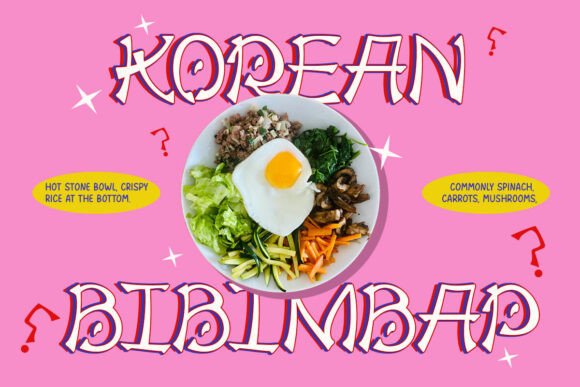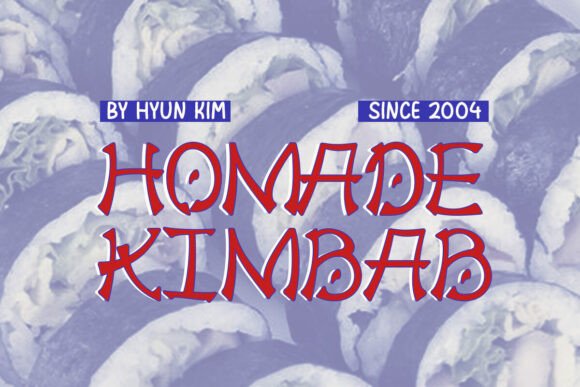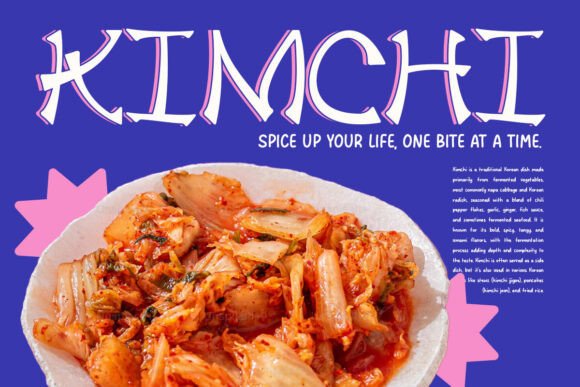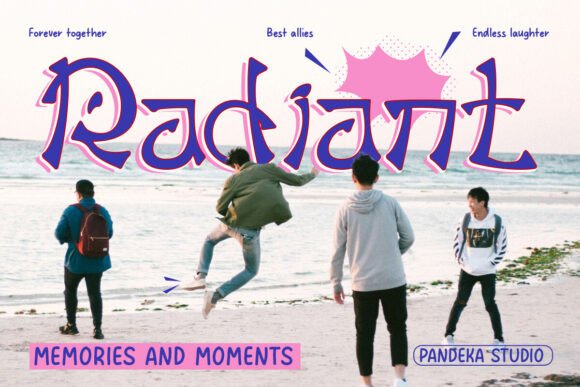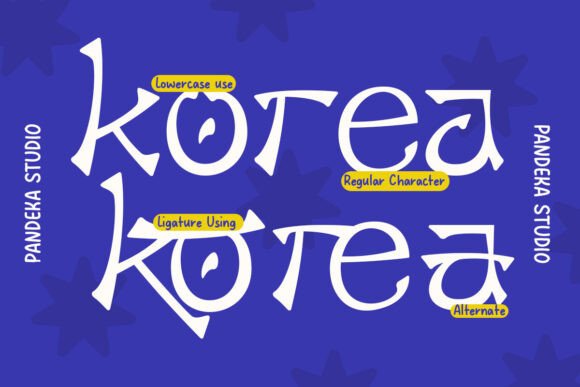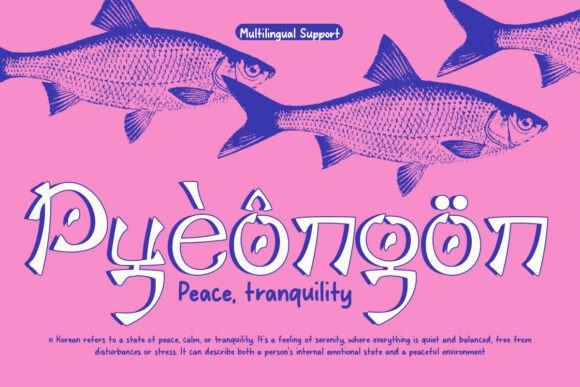
Hangeul Font: A Timeless Blend of Traditional and Modern Typography
In the world of typography, fonts play a crucial role in conveying the tone and personality of a brand, product, or message. For designers and crafters, finding the right font can make all the difference in creating a visually stunning and effective design. One font that has gained significant attention in recent times is Hangeul, a Korean display font that seamlessly blends bold lettering with modern typography while embracing a traditional aesthetic.
Inspired by Hangul Style
Hangeul is inspired by the traditional Hangul style, which is a unique and iconic part of Korean culture. Hangul is the native writing system of Korea, created in the 15th century to promote literacy and education. The Hangul style is characterized by its bold, elegant, and harmonious letterforms, which reflect the richness and beauty of Korean culture. The Hangeul font takes these traditional elements and infuses them with a modern twist, creating a unique and captivating typeface.
A Perfect Blend of Tradition and Modernity
The Hangeul font is a perfect blend of traditional and modern typography, making it an excellent choice for designers and crafters looking to add a touch of cultural flair to their designs. The font’s bold lettering and modern typography ensure that it is legible and versatile, while its traditional aesthetic adds a distinct and timeless charm. Whether you’re working on a branding project, logo design, packaging, poster, event invitation, or editorial design, Hangeul is an excellent choice.
Characteristics of Hangeul Font
The Hangeul font has several characteristics that make it stand out from other fonts. Some of its key features include:
- Bold lettering: Hangeul features bold and confident lettering that grabs attention.
- Modern typography: The font incorporates modern typography elements, making it legible and versatile.
- Traditional aesthetic: Hangeul’s traditional aesthetic adds a distinct and timeless charm to any design.
- Cultural significance: The font is inspired by Hangul style, reflecting the richness and beauty of Korean culture.
Use Cases for Hangeul Font
Hangeul is a versatile font that can be used in a variety of design projects. Some of the most popular use cases for Hangeul include:
- Branding: Hangeul is perfect for branding projects that require a bold and distinctive font.
- Logos: The font’s unique and captivating design makes it an excellent choice for logos.
- Packaging: Hangeul can add a touch of cultural flair to packaging designs.
- Posters: The font’s bold lettering and modern typography make it perfect for posters and other visual displays.
- Event invitations: Hangeul can add a touch of elegance and sophistication to event invitations.
- Editorial design: The font’s legibility and versatility make it suitable for editorial design projects.
Why Choose Hangeul Font?
There are several reasons why designers and crafters should consider choosing Hangeul font for their next project. Some of the benefits of using Hangeul include:
- Unique and distinctive design: Hangeul’s blend of traditional and modern elements makes it a unique and captivating font.
- Cultural significance: The font’s inspiration from Hangul style adds a touch of cultural flair to any design.
- Versatility: Hangeul is a versatile font that can be used in a variety of design projects.
- Legibility: The font’s modern typography ensures that it is legible and easy to read.
In conclusion, Hangeul font is a timeless blend of traditional and modern typography that adds a distinct and timeless charm to any design project. Its unique and captivating design, cultural significance, versatility, and legibility make it an excellent choice for designers and crafters. Whether you’re working on a branding project, logo design, packaging, poster, event invitation, or editorial design, Hangeul is a font that is sure to impress.